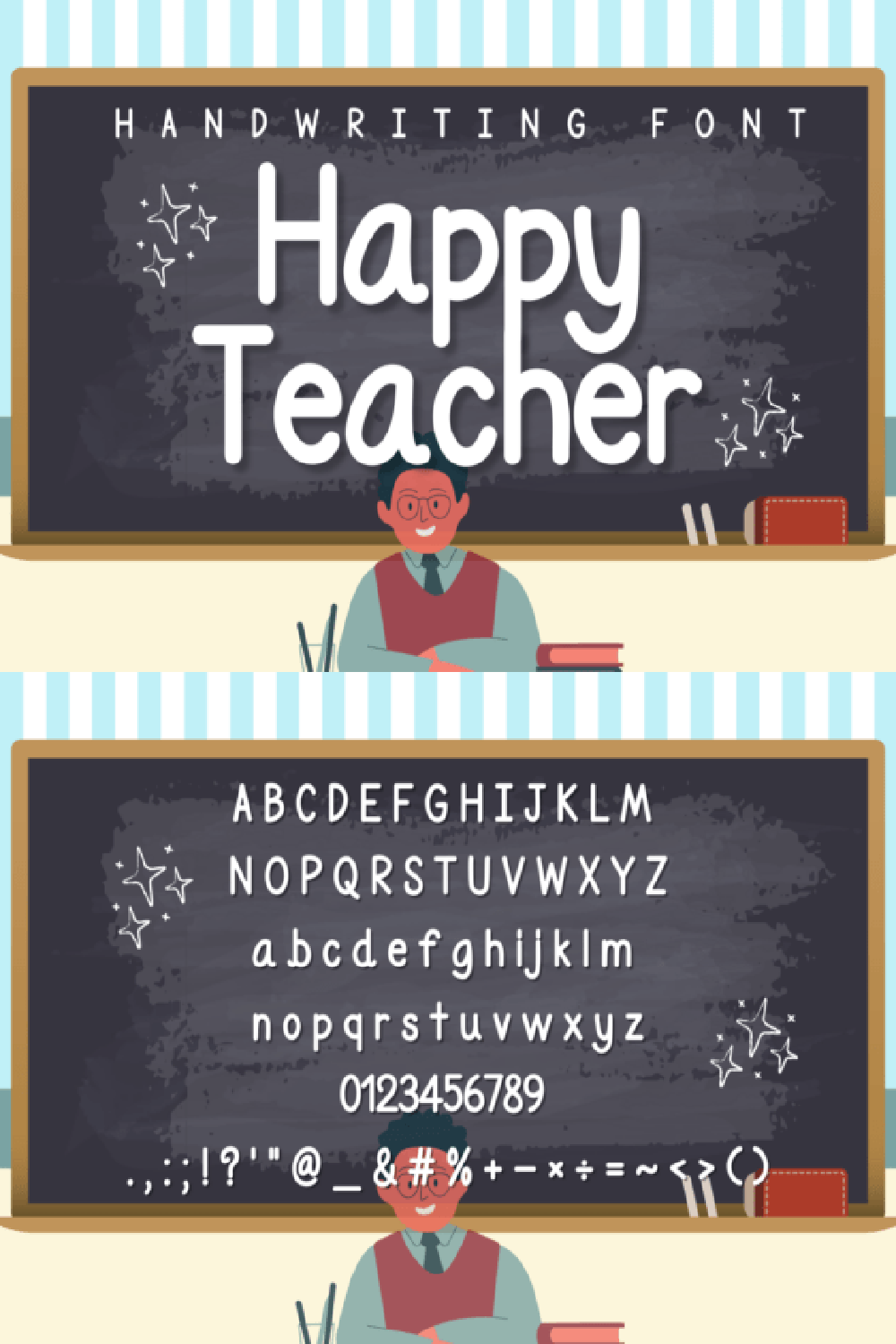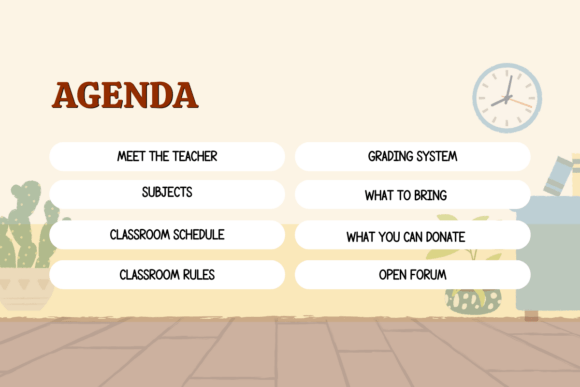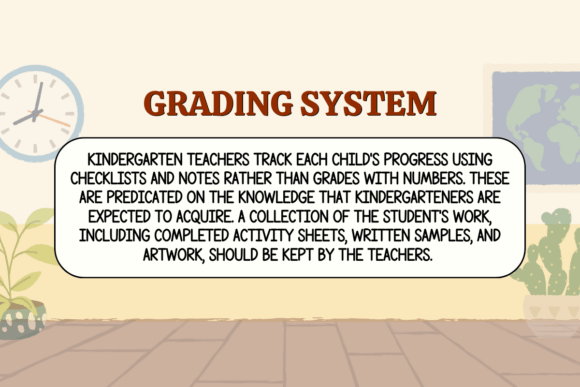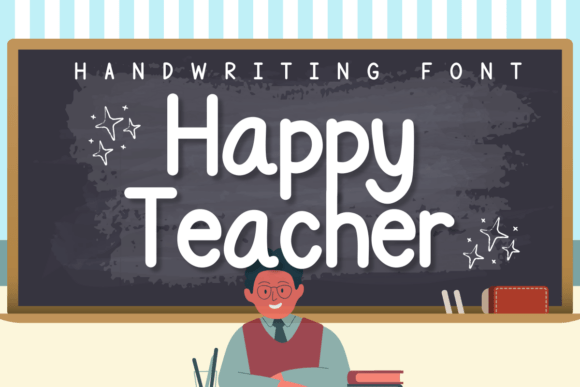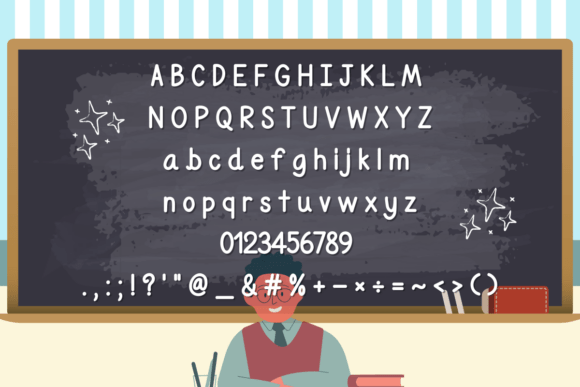
Happy Teacher Font
About the Happy Teacher Font
Let us introduce you to Happy Teacher Font, where timeless design meets modern craftsmanship. Happy Teacher is a handwritten font. You can use it for taking notes, writing a diary or making greeting cards. However you can still use it for other designs such as banners content mugs cards shirts stationery social media posts and more!
Happy Teacher’s friendly, informal style makes it ideal for projects requiring a warm, approachable feel. It excels in headlines, short text blocks on social media, greeting cards, and children’s book titles. Avoid using it for large bodies of text or UI elements where readability is paramount; its handwritten nature can hinder legibility in extended use.
Pairing Happy Teacher with a clean sans-serif like Open Sans for body copy creates a pleasing contrast. For a more playful feel, consider a geometric sans-serif such as Futura. A classic serif like Garamond can add a touch of sophistication if a more formal yet friendly balance is desired.
The font’s overall personality is best described as cheerful and approachable, making it perfect for brands targeting a young or family-oriented audience, educational materials, or businesses emphasizing warmth and approachability.